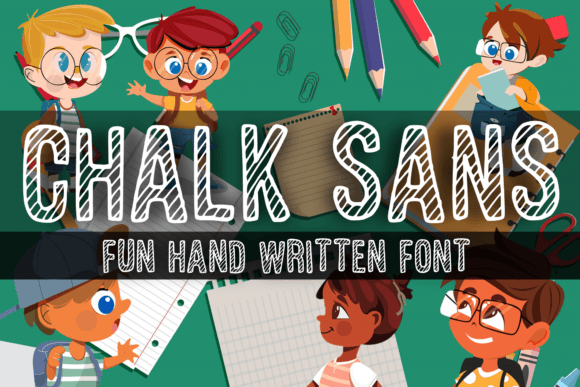
Embark on an extraordinary typographic journey with Chalk Sans Font, the ultimate display font that embodies playfulness and authenticity. This charming creation by MVMET is not just a font; it's an invitation to unleash your creativity and make your designs come alive.
Immerse yourself in the delightful world of Chalk Sans, where letters dance with joy and imagination. Its chunky, playful characters exude a sense of nostalgia and warmth, evoking memories of childhood wonder and carefree days. This font is the perfect companion for any children's activity or school project, adding a touch of whimsy and personality that will capture the hearts of both young and old.
With Chalk Sans, you can effortlessly transform ordinary designs into captivating masterpieces. Its bold, eye-catching letters demand attention, making it an ideal choice for blog titles, social media graphics, and any project where you want to make a lasting impression. Its playful nature also lends itself perfectly to invitations, greeting cards, and other personal projects, adding a touch of charm and individuality that will delight your recipients.
Chalk Sans is more than just a font; it's an experience. Its unique style and personality will breathe life into your designs, making them stand out from the crowd and leaving a lasting impression on your audience. Embrace the magic of Chalk Sans and let your creativity soar to new heights.